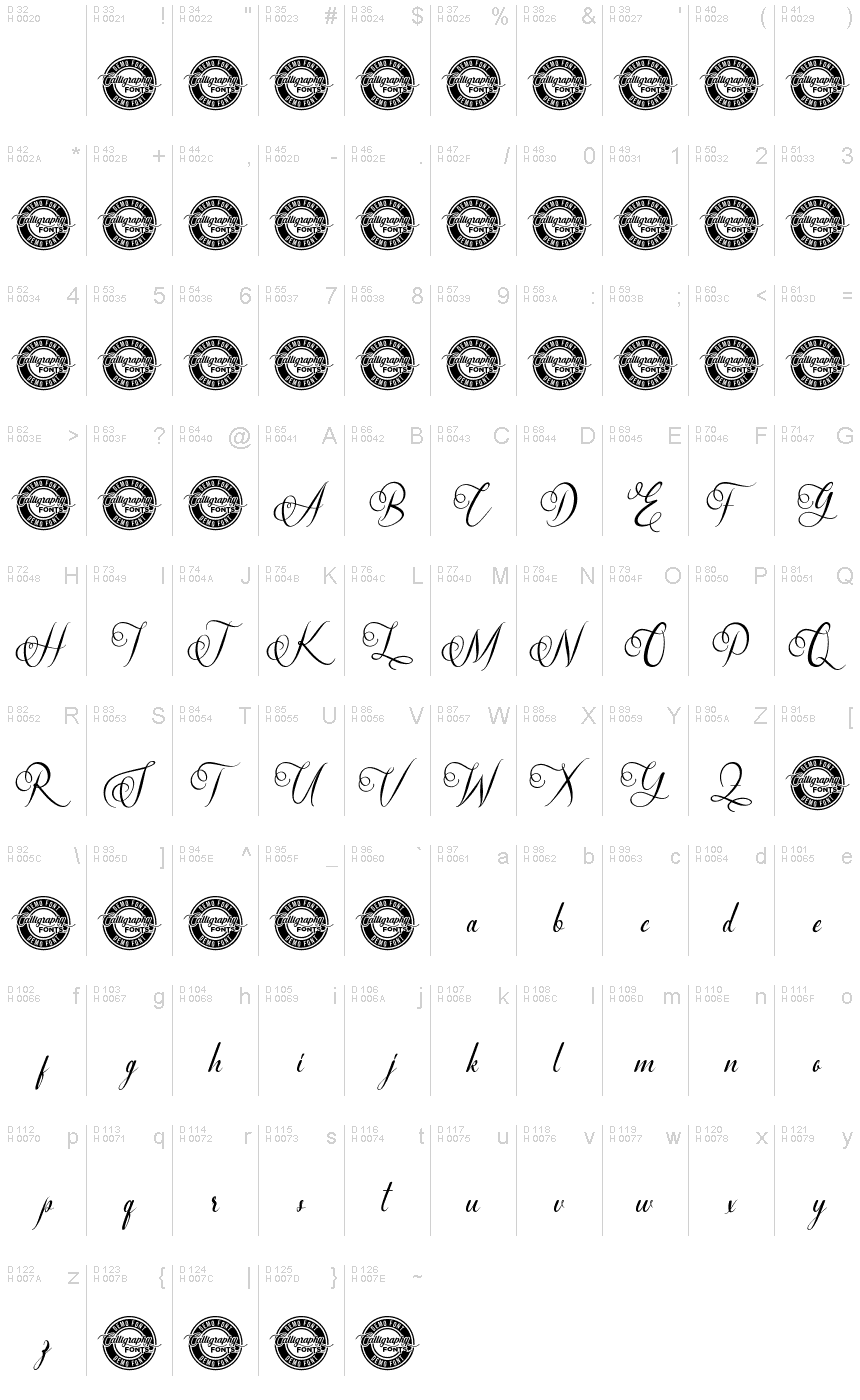
Georgina Stella Demo
Georgina Stella is a stylish calligraphy font designed by Widiyanti & Suci Anita. Its light weight makes it perfect for creative projects like invitations, logos, and posters.